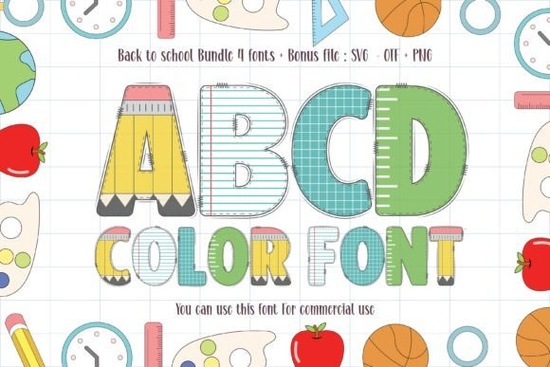
The Back to School font is a thick, playful color font that immediately brings a fun, energetic feel to any project you’re designing for kids or classroom themes. Many designers, crafters, and print-on-demand sellers look for a typeface that works right out of the box without needing extra graphic editing. This one delivers bold, multicolored letters that look handcrafted, making it a practical pick for everything from book covers to mug designs.
What makes a thick lettered color font stand out?
Color fonts pack built‑in texture, gradient, or shading directly into the letter shapes. With the Back to School font, you get heavy, rounded characters that already have a cheerful coloring ‑ no need to apply separate effects. The thick strokes help your text stay readable even on busy backgrounds like notebook paper or patterned lunchbox wraps. Unlike a standard outline font that you’d have to fill manually, this one saves you production time, which matters if you’re running a small shop or creating multiple classroom materials in one sitting.
Because the letters are so substantial, they hold their own in large titles, birthday banner cutouts, and printable flashcards. The weight also gives you flexibility to use it in both digital screens and printed products without losing impact.
Can you use a color font for school projects and printables?
Absolutely. Teachers and homeschooling parents often grab fonts like this for bulletin board letters, name tags, activity sheets, and reward charts. The built‑in color eliminates the step of coloring each letter in a separate program, so you can design a full set of classroom labels in minutes. If you’re selling printable packs, adding a thick, kid‑friendly header in Back to School makes your listing images pop on platforms like Etsy or Teachers Pay Teachers.
The character set usually includes uppercase, lowercase, numbers, and common punctuation, so you can write out full phrases like “Welcome to Grade 2” or “Homework Club” without missing characters.
How does it work inside popular design programs?
Most color fonts come in OpenType‑SVG format, which is supported by Photoshop, Illustrator, and newer versions of Canva. You simply install the file like any other font, type your text, and the colors appear automatically. In some apps you may need to turn on ‘color font’ or ‘SVG font’ visibility, but once it’s active, you can scale it up or down without losing sharpness. If you’re using older software or a silhouette cutting machine, check that your version supports SVG fonts, or treat the font as a regular outline with a solid color. Many crafters use the font’s thick shape in Cricut Design Space by welding or offsetting the text, then printing the colored version as a sublimation design.
Is a color font suitable for print‑on‑demand and small business products?
Print‑on‑demand sellers need designs that look professional on items like t‑shirts, tote bags, and stickers. A pre‑colored font can be a smart shortcut because you don’t have to build a multistep gradient. The Back to School font’s sturdy letterforms reproduce well on fabric, enamel pins, and stationery. Just make sure your final file is a high‑resolution PNG or a correctly exported PDF, especially if your print provider prefers flattened artwork. Test a small sample first, but in general, the vibrant colors stay true when printed on good‑quality materials.
Where can a back‑to‑school themed font fit beyond the classroom?
Even if you’re not designing for education, a playful, thick font works for children’s book covers, toy packaging, YouTube thumbnail badges, party invites, and scrapbooking layouts. The back‑to‑school style immediately signals a youthful, fun mood, so it pairs nicely with doodle illustrations, crayon textures, or chalkboard backgrounds. Branding for a kids’ after‑school program or a local library reading challenge can also benefit from this kind of typeface.
If you need additional school‑inspired styles, you can scroll through the back to school color fonts collection, where you’ll find pencil‑themed alphabets, chalky scripts, and crayon‑effect letters that mix and match easily.
What should you check before purchasing?
Like any color font, it helps to preview the full character map. Most creators include a preview image that shows every glyph, numbers, and the available ligatures. The Back to School font typically gives you a complete set, but always verify that special characters or accented letters are included if you need them. The download often bundles both a color‑ready SVG font file and a standard solid version, so you can use it even when the color format isn’t supported in your current app.
If you enjoy working with fonts that carry their own playful character, this one fits easily into a library of go‑to display typefaces. Because the letters are thick and pre‑colored, you’ll reach for it whenever a project calls for instant cheerfulness without adding layers of effects.